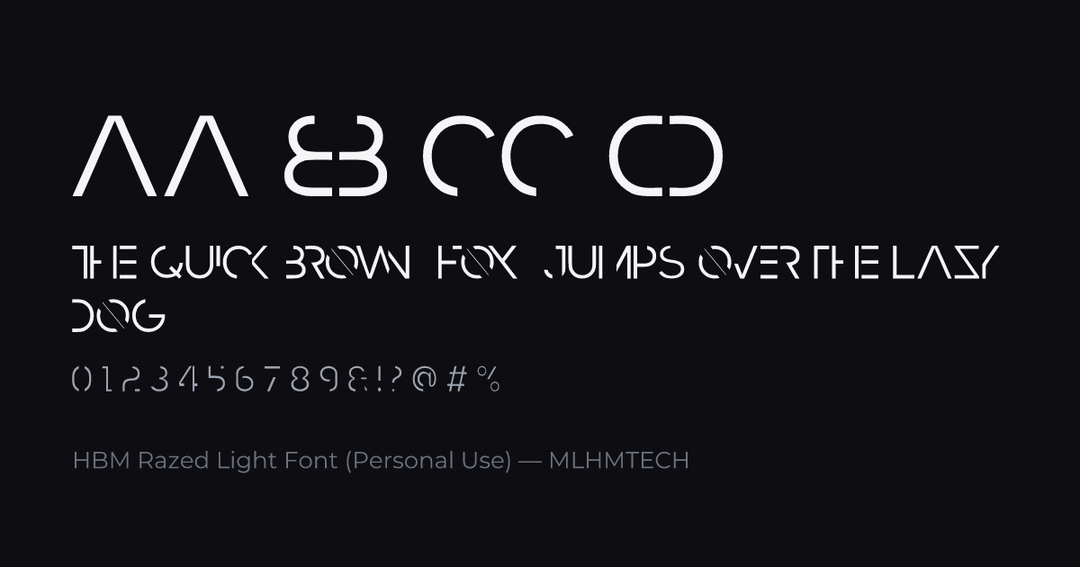
HBM Razed Light Font (Personal Use)
HBM Razed Light is a distinctive display font with a modern edge, ideal for eye-catching titles and branding. Perfect for personal creative projects.
HBM Razed Light is a unique display font that brings a bold, contemporary feel to your designs. Its sharp lines and distinctive character make it stand out in headlines, logos, and promotional materials. This font is perfect for adding a touch of personality to your creative projects.
Whether you're working on a poster, social media graphic, or personal branding, HBM Razed Light adds a creative flair that captures attention.